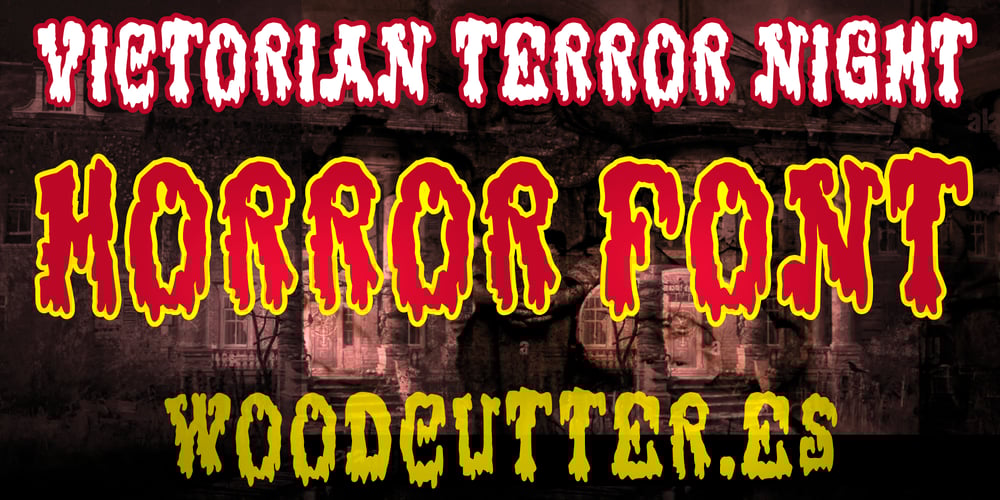
Victorian Terror Night
Victorian Terror Night font
Victorian Terror Night Font Family was designed by Jordi Manero and published by Woodcutter. Victorian Terror Night contains 1 styles and family package options. “Victorian Terror Night” is a font that blends the macabre with elegance. Its uppercase letters appear to drip like blood, yet maintain a refined and sophisticated base, evoking the Victorian style. This typeface is perfect for projects aiming to convey a dark and gothic atmosphere with a touch of class and mystery. Ideal for horror movie titles, themed event posters, or any design that needs a strong and dramatic visual impact. “Victorian Terror Night” ensures your message is seen and felt, capturing the essence of terror with an air of distinction.